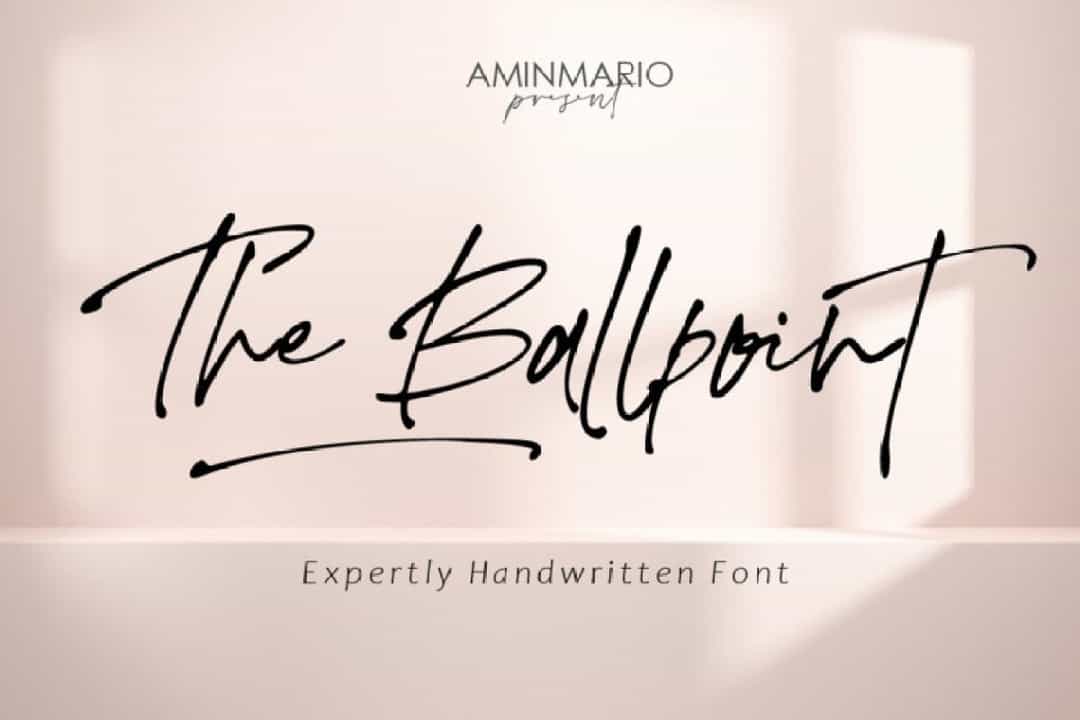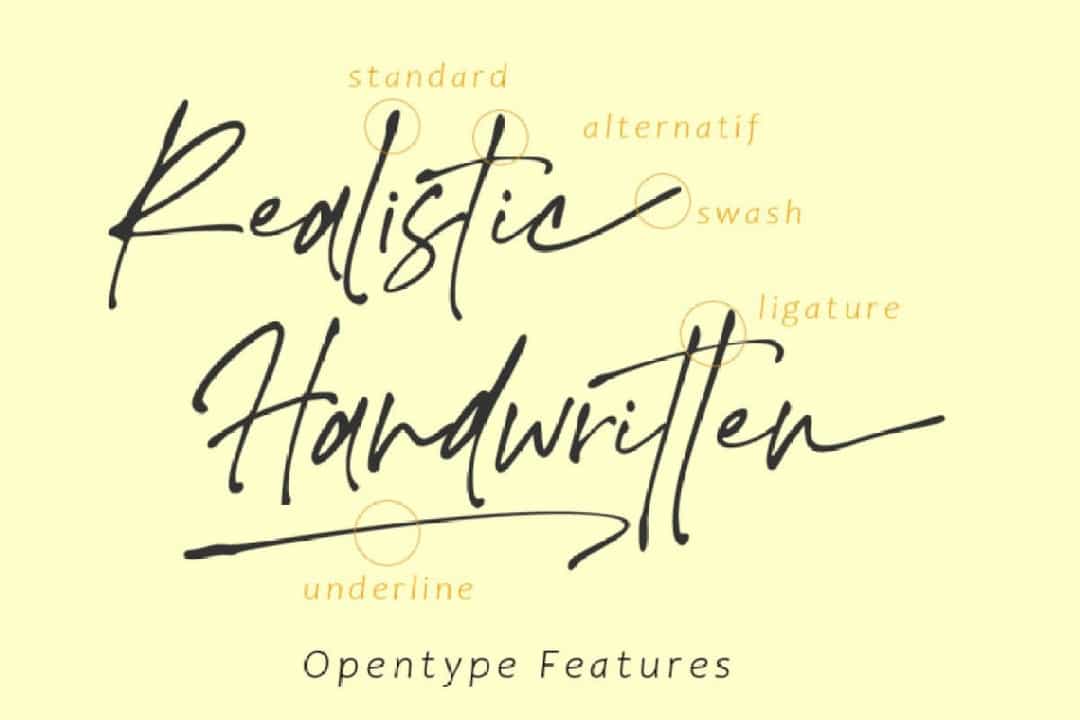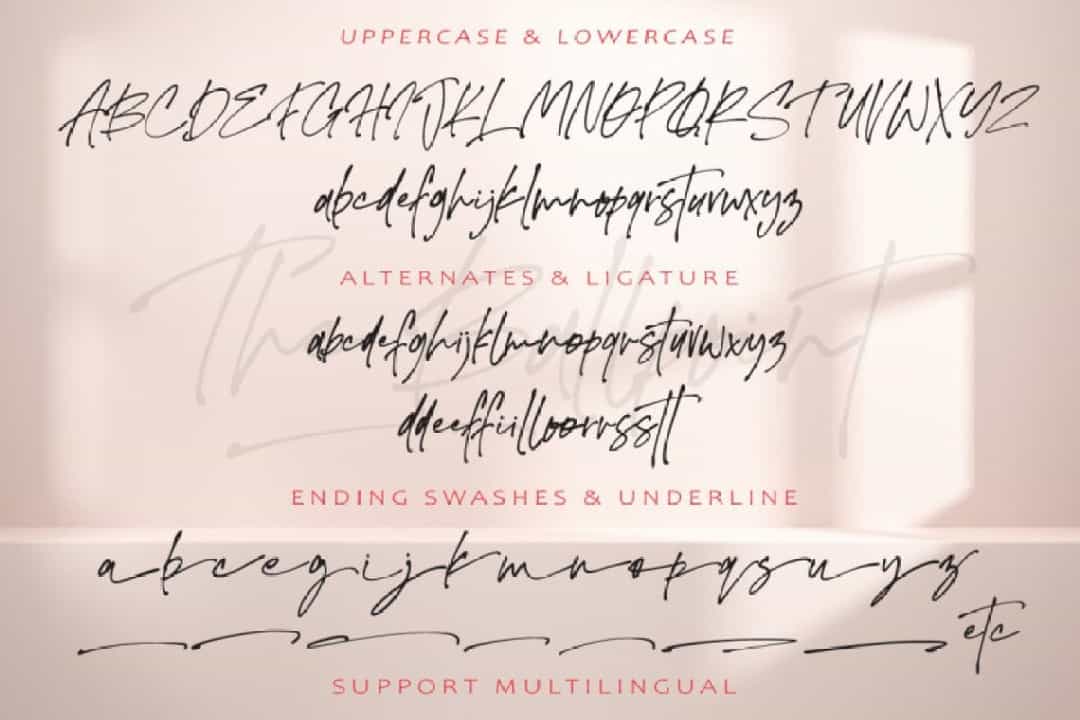
Discover The Ballpoint Font, part of the Handwritten Script Personal collection—a versatile and unique font perfect for adding a personal touch to your projects. Download it for free and enjoy crafting designs with style, from invitations to social media posts. This font is available exclusively for personal use, giving you the freedom to create without limits. Unlock your creativity with The Ballpoint Font today!
The Ballpoint font contains lower case letters to give the impression of handwriting that includes ligatures, lowercase swashes, and underlines. Use standard small case letters with many other small case options to make your personal ligature – ideal for tasks that call for writing! Open type fonts must be employed; however, this is only possible with Open type compatible software applications that are available today.